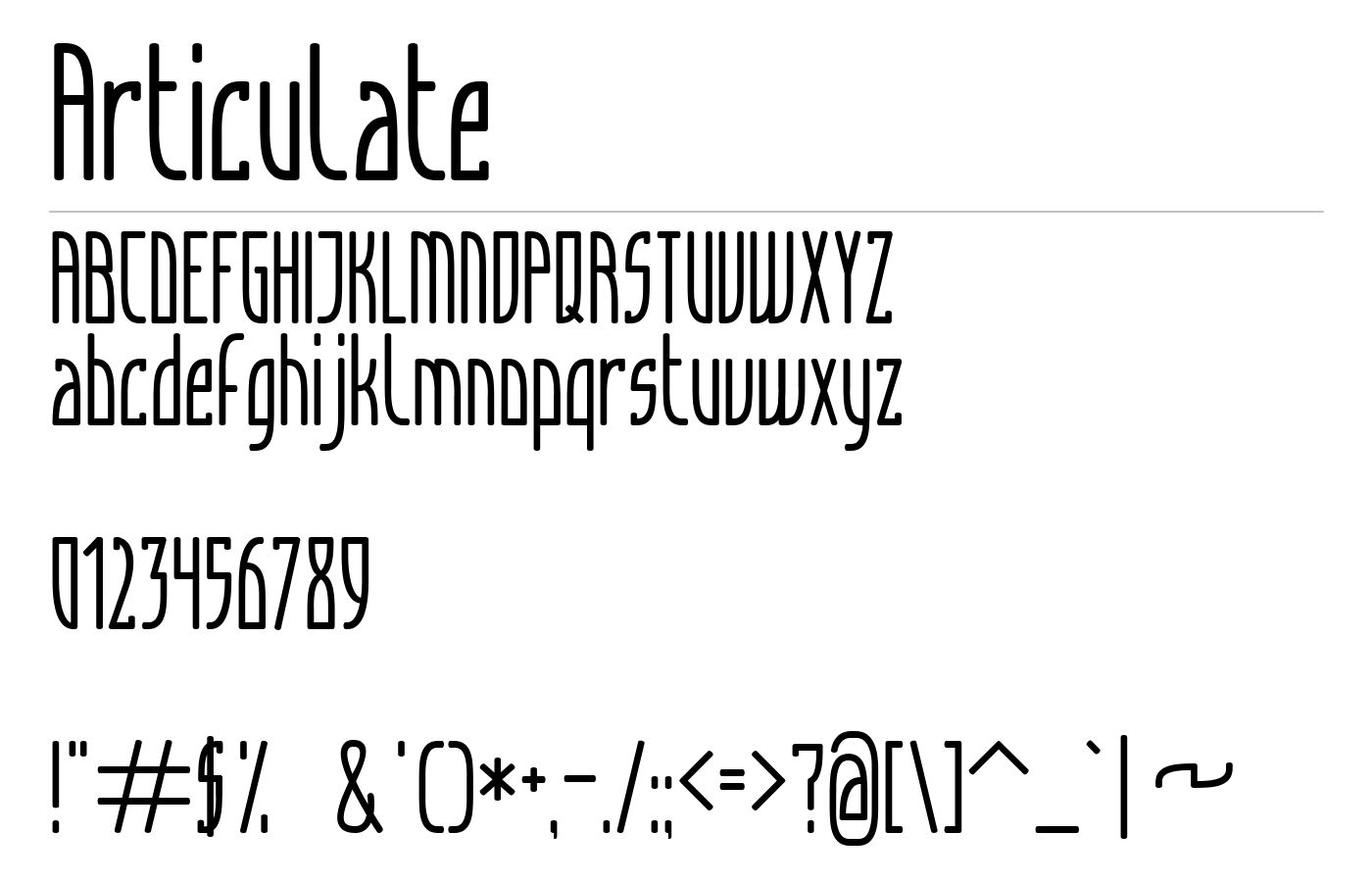
Articulate is a tall, narrow sans serif font with clean, geometric letterforms that convey a modern and slightly retro vibe. Its condensed shape and uniform stroke weight make it ideal for stylish headlines or branding that demands a sleek, distinctive look. This font works best in editorial design, posters, and packaging where a contemporary and elegant feel is desired.
Articulate Font
About Articulate Font